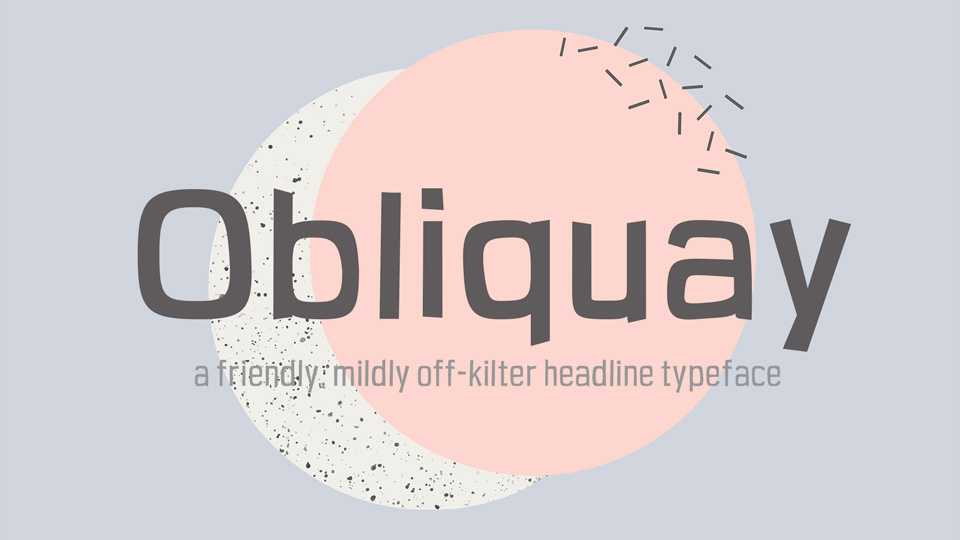
Download Obliquay font family, a friendly, mildly off-kilter headline typeface with a touch of 60s movie posters in 4 styles. Obliquay typeface perfectly fits for posters, headlines, short messages, crafts and other creative projects.
Designer: Frank Sikernitsky